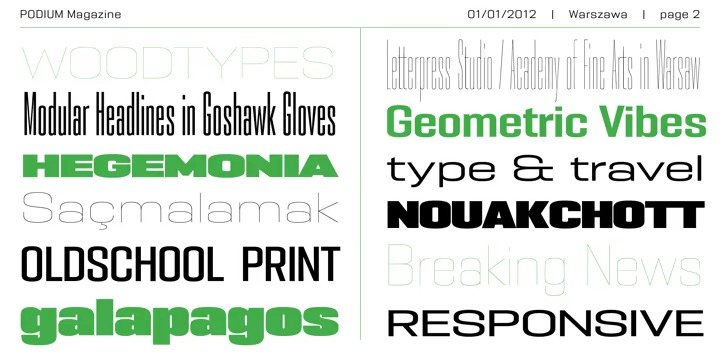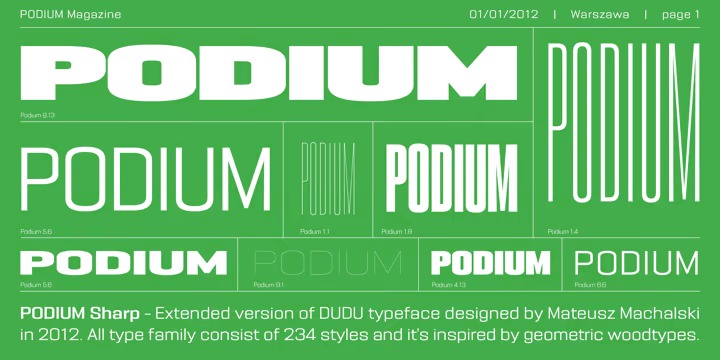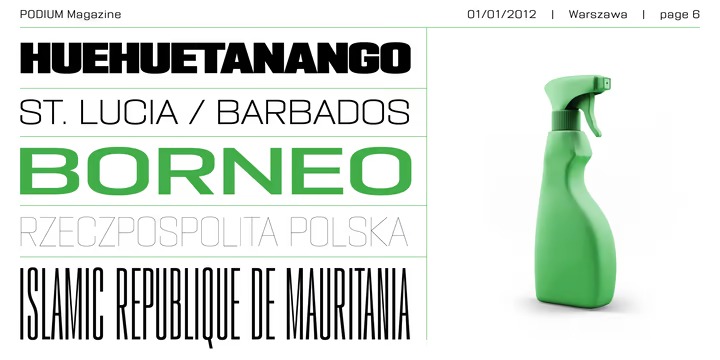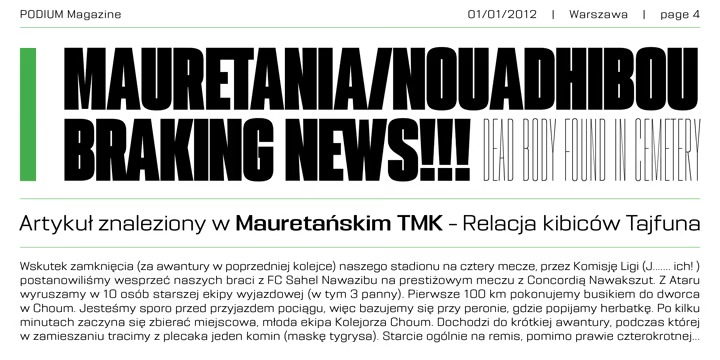
PODIUM Sharp Sans Serif Font
This is a modern sans serif font family with a geometric touch. It includes 234 styles: from ultra compressed hairline to extra expanded heavy. Main purpose of this project was idea to make hybrid between different modular and geometric woodtypes that I found in old polish specimens: Rex, Blok, Bacarat etc. Thanks to big range of different styles, PODIUM will be perfect choice for visual identities, posters and display usage. For better comfort of using PODIUM I’ve prepared new idea of styles naming based on Frutigres’s Universe and Climbing evaluation. First digit means width and the second weights of style. (So for example style 1.1 is ultra compressed hairline, 6.5 is something like regular and 9.13 is ultra expanded heavy.